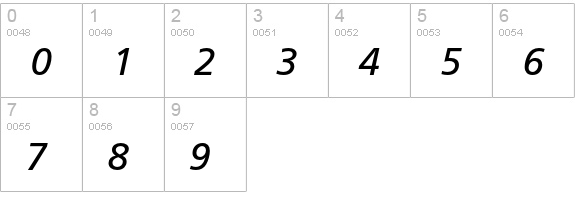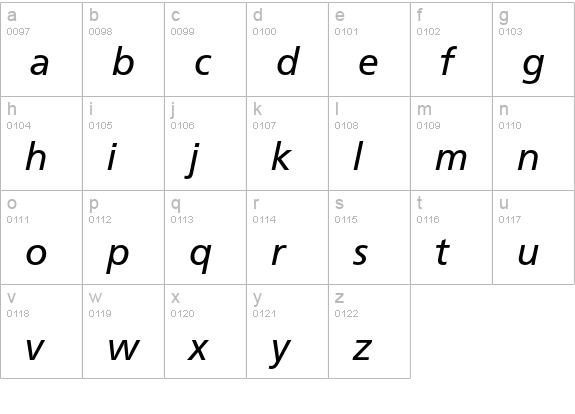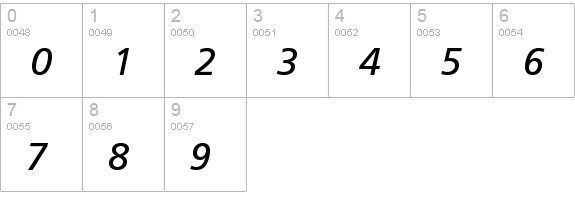
CartoGothic Std Italic Font Details
CartoGothic Std Italic is a distinctive, italic variant in the CartoGothic typeface family \xE2\x80\x94 well suited to design and typography projects.
CartoGothic Std Italic is a sleek and modern font that combines elements of traditional Gothic typography with a contemporary twist. Its italicized style adds a dynamic and sophisticated touch to any design project. The slender, elegant letterforms make it ideal for conveying a sense of style and professionalism. What sets CartoGothic Std Italic apart is that it is available for free download at FontsMarket.com. This means that you can easily access this high-quality font without any cost, making it a valuable addition to your font collection. Whether you're working on branding, advertising, or editorial design, CartoGothic Std Italic is a versatile choice that will elevate your projects with its unique aesthetic. Embrace the elegance and versatility of CartoGothic Std Italic and enhance your designs with this free font today!